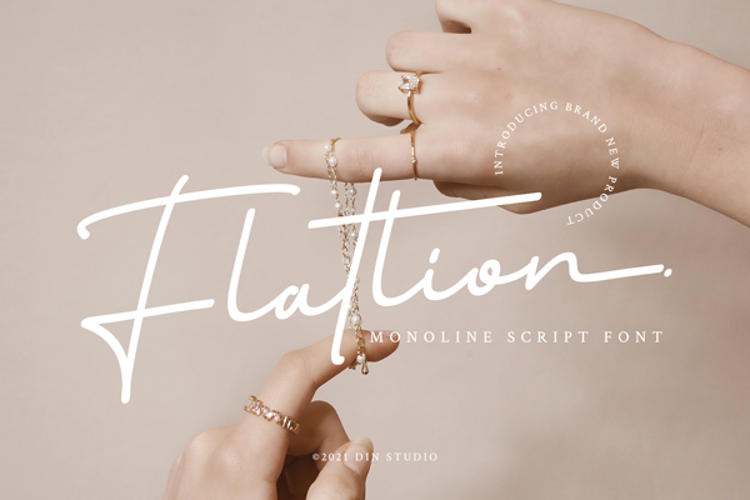
Flatlion Font
Product Description :
Flatlion – A Script Font
The elegant typeface style looks very interesting for loads of different projects and promotions. It is perfect to use on your websites, social media brandings, Pinterest banners, printed products, and more.
Features include:
• Ligatures
• Stylistic Sets
• Swashes
• Multilingual Supports
• Numerals and Punctuations